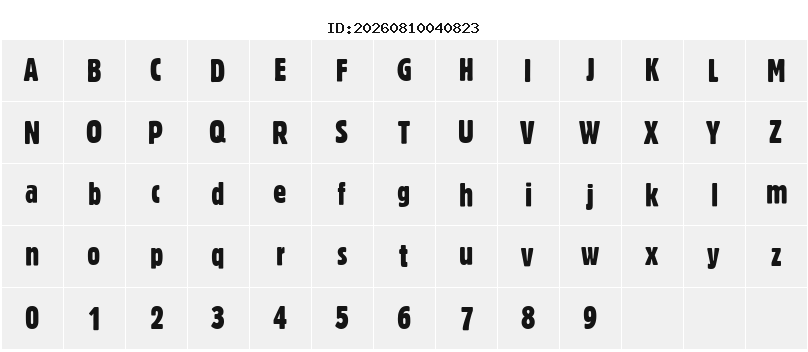
BlocExtCondC Preview
• Font Name: BlocExtCondC
• Full Font Name: PT Bloc Extra Condensed Cyrillic
• PostScript Name: BlocExtCondC
• Character Count: 224
• Manufacturer: ParaType, Inc
• Description: Designed at ParaGraph in 1997 by Tagir Safayev. Based on Block of H.Berthold, 1908 by Heinz Hoffmann. A bold sans of a typical German pattern. For use in advertising and display typography.
About BlocExtCondC.ttf
BlocExtCondC.ttf is a modern, elegant sans-serif font designed for ultimate readability and visual harmony. Perfect for branding, headlines, web design, and print materials.